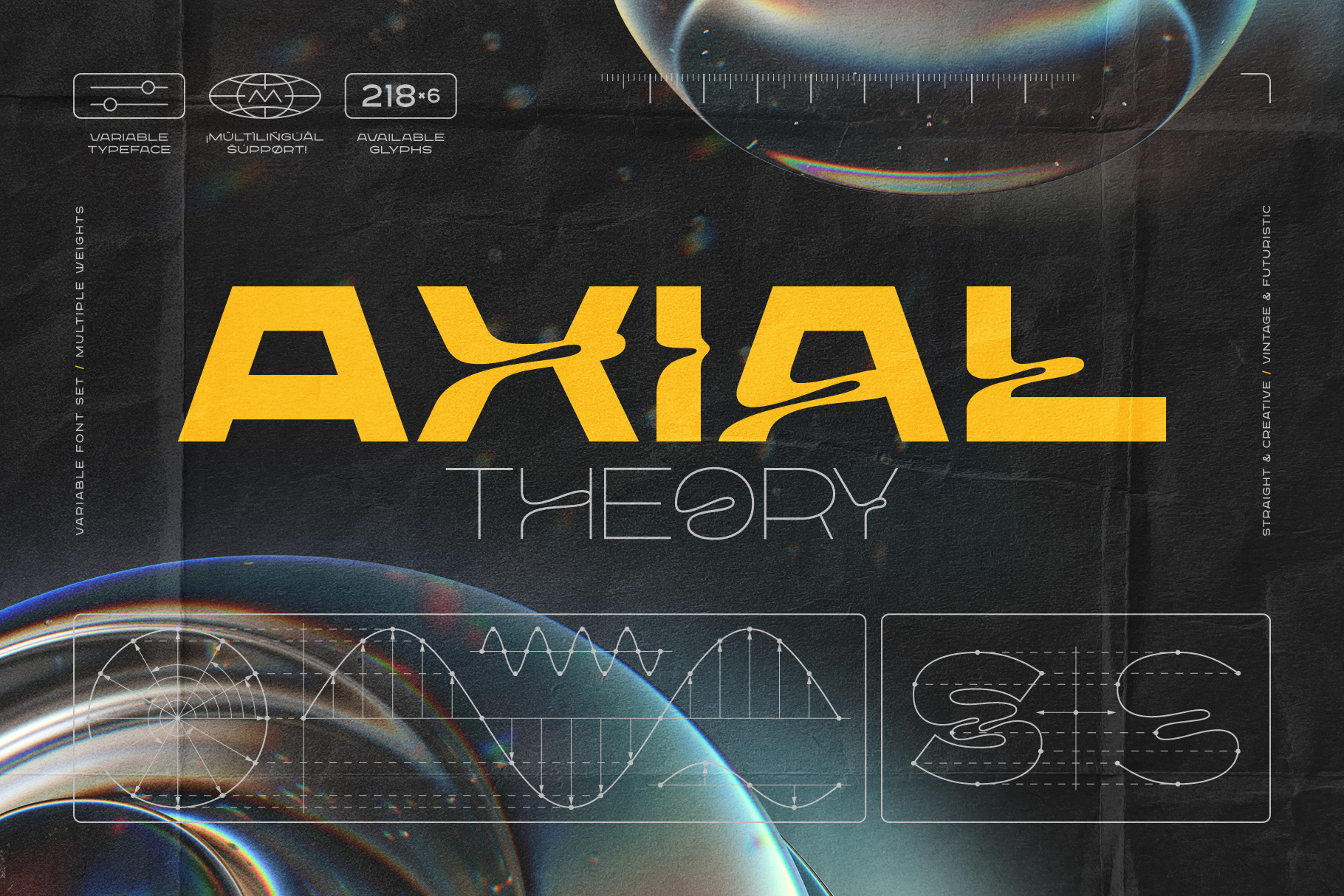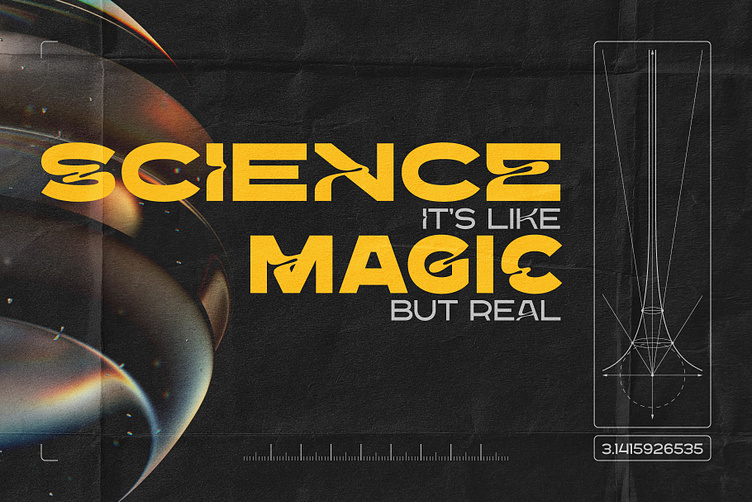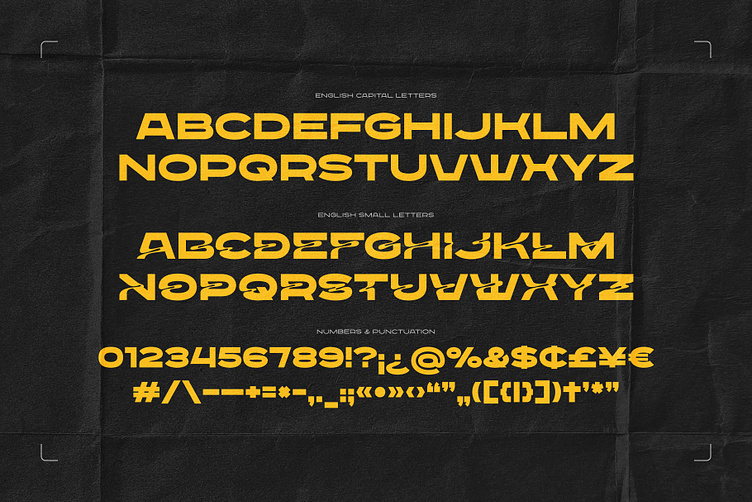
Axial Theory - Variable Font Set
Introducing Axial Theory, a retrofuturistic font set. This type includes 3 weights, 3 width variations, and an infinitely flexible variable font. Its nicely curved letterforms bring an original vibe to your text.